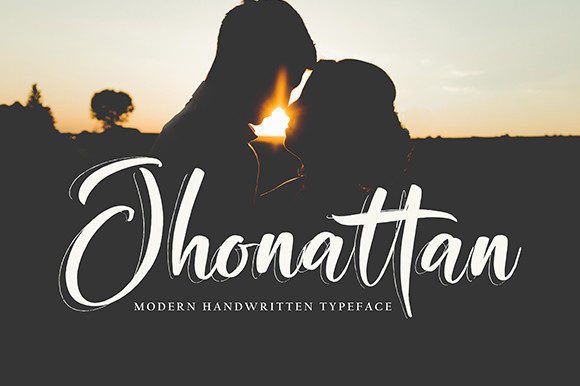
Immerse yourself in the enchanting world of calligraphy with Jhonatan Font, a script typeface that will transform your designs into timeless masterpieces.
Inspired by the elegance of classic typography, this font boasts an inimitable charm that adds a touch of sophistication to every project. Its versatile style effortlessly adapts to any creative endeavor, whether you seek to elevate your Instagram presence or unleash your artistry in calligraphy scripts.
With Jhonatan Font, the boundaries of creativity dissolve. Let your imagination soar as you craft mesmerizing invitations, heartfelt love letters, or eye-catching social media posts. Its intricate flourishes and graceful curves will weave a spell of enchantment that captivates all who behold it.
Unlock the limitless possibilities within Jhonatan Font. Its meticulous attention to detail and unparalleled versatility make it the perfect companion for any design enthusiast. Unleash your inner artist and watch as your creative visions leap off the page, leaving an indelible mark on the world.